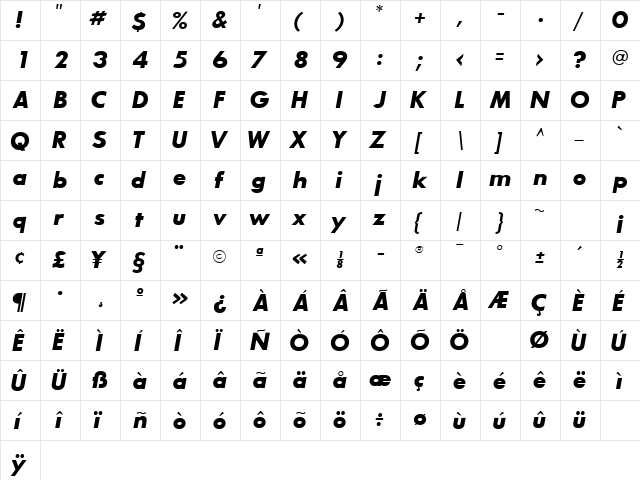
BouganBlackSSK Bold Italic
Design Context for BouganBlackSSK Typeface
BouganBlackSSK offers clean, dependable letterforms without strong stylistic allegiance, making it a practical choice for designers who need flexibility. The slanted form adds forward momentum and visual energy. Its bold stroke weight gives it real presence on the page.
Pro Tip: Use BouganBlackSSK for emphasis, pull quotes, and subheadings where its slanted energy can add rhythm to the layout.